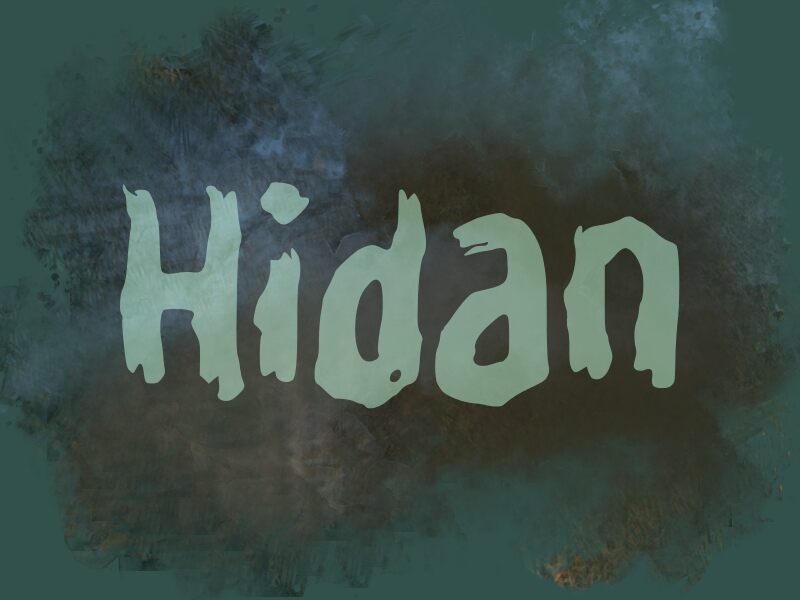
Hidan
Hidan, a bone-chilling display font crafted by wep, unleashes a haunting aura in its bold weight.
With its eerie style, Hidan is perfect for horror movie posters, spine-tingling book covers, and chilling Halloween party invitations. Its menacing presence adds an element of fear to video game titles and gothic-themed websites. The terrifyingly captivating Hidan font will leave a lasting impression on any project seeking to evoke a sense of dread and send shivers down the reader's spine.